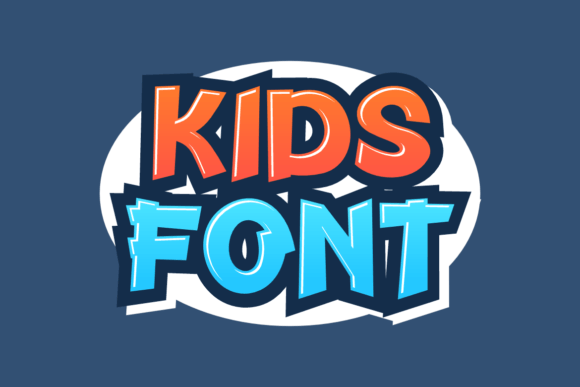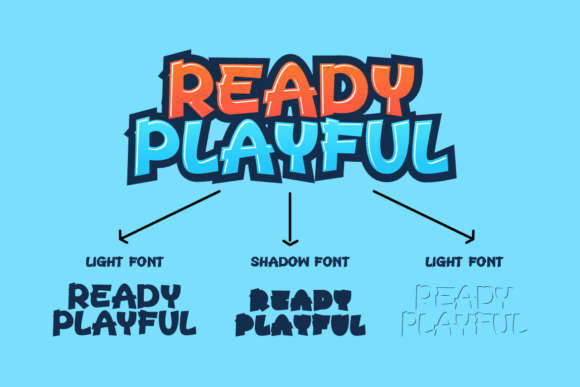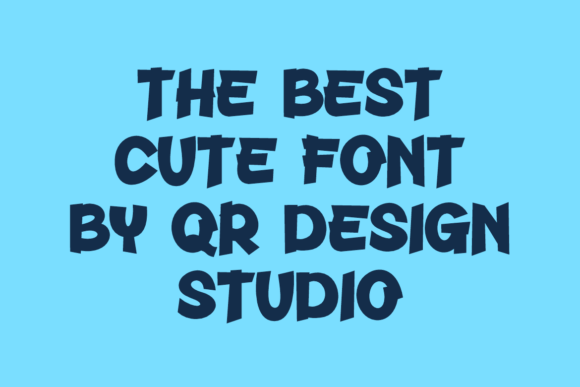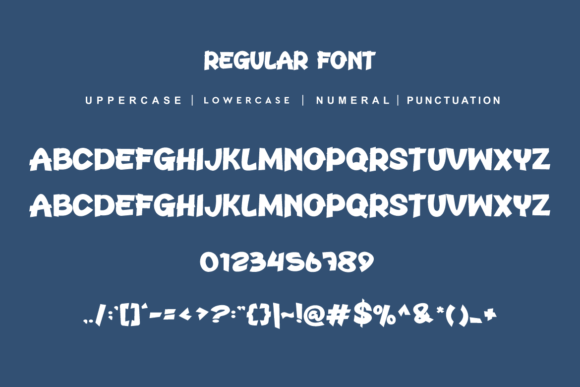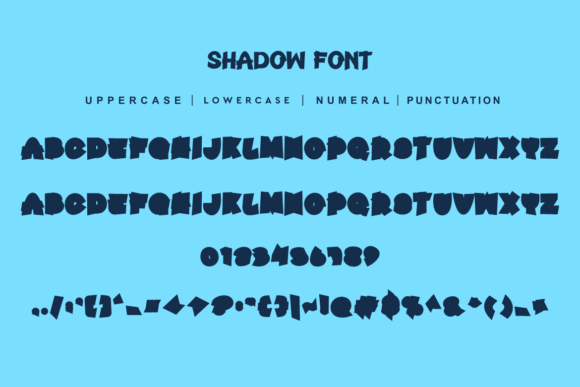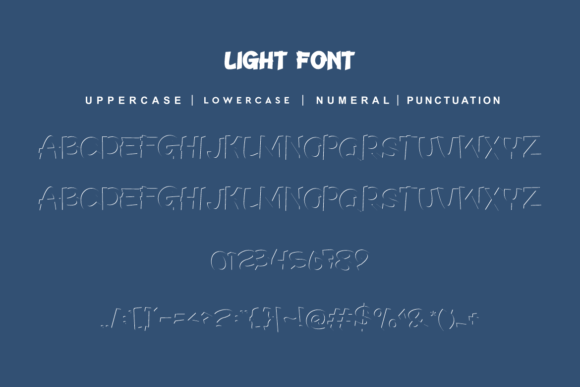
Introduction to Ready Playful Font
As designers, we’ve all been there – staring at a blank canvas, trying to bring a creative project to life. The cursor blinks, waiting for inspiration to strike. It’s in these moments that the right design resource can make all the difference. For those seeking to add a touch of magic to their work, we’re excited to introduce the Ready Playful Font – a modern, whimsical display font that’s sure to transport your designs to a world of wonder.
With its transparent background and high-quality design, the Ready Playful Font is an excellent addition to any designer’s toolkit. Whether you’re working on a children’s book, a video game, or a marketing campaign, this font is sure to add a playful touch that will captivate your audience. And the best part? It’s available for free download, making it an accessible and valuable resource for designers of all levels.
Key Features of Ready Playful Font
- High-quality design resource with a unique and playful style, perfect for creative projects.
- Designed with a high-resolution display in mind, ensuring crisp and clear typography at sizes up to 72 points.
- Comes with a comprehensive character set, including uppercase and lowercase letters, numbers, and punctuation marks.
- Perfect for designers and artists looking for a fun and engaging font to add a playful touch to their creative projects.
Honest Review: Ready Playful Font
As a designer, I’m always on the lookout for high-quality design resources to elevate my creative projects. Recently, I stumbled upon the Ready Playful Font, and I’m excited to share my honest review.
- ✨ Unique and playful design style that adds a touch of whimsy to any project
- ✨ High quality and crisp font rendering, perfect for digital and print applications
- ✨ Transparent background option, allowing for seamless integration with any design element
- ⚠️ Limited character set, which might be a concern for designers working on complex projects
- ⚠️ Not ideal for projects requiring a large font size, as it may become pixelated
Overall, I’m impressed with the Ready Playful Font’s potential to add a playful touch to creative projects. While it may not be the perfect font for every designer, its unique style and high quality make it a valuable design resource. With a few tweaks to address the limitations, I’d highly recommend it to designers looking for a fun and engaging font.
To get the most out of the Ready Playful Font, experiment with different font sizes, colors, and styles to create a unique and eye-catching design. You can also use the font in combination with other design elements, such as images and graphics, to create a visually appealing design.
The Ready Playful Font is ideal for a variety of creative projects, including social media graphics, presentations, posters, and flyers. Its high-quality design and transparent background feature make it a valuable design resource for any project.
The Alex Brush Font is a beautiful, handwritten script font that’s perfect for creative projects that require a touch of whimsy and personality. It’s ideal for use in invitations, greeting cards, and other design materials that require a high level of sophistication. Alex Brush Font is available for free download and can be used on a transparent background.
Yes, the Ready Playful Font has a transparent background, making it ideal for use on images or videos with complex backgrounds. This feature allows for a clean and professional look in your creative project, and can be easily adjusted using design software.